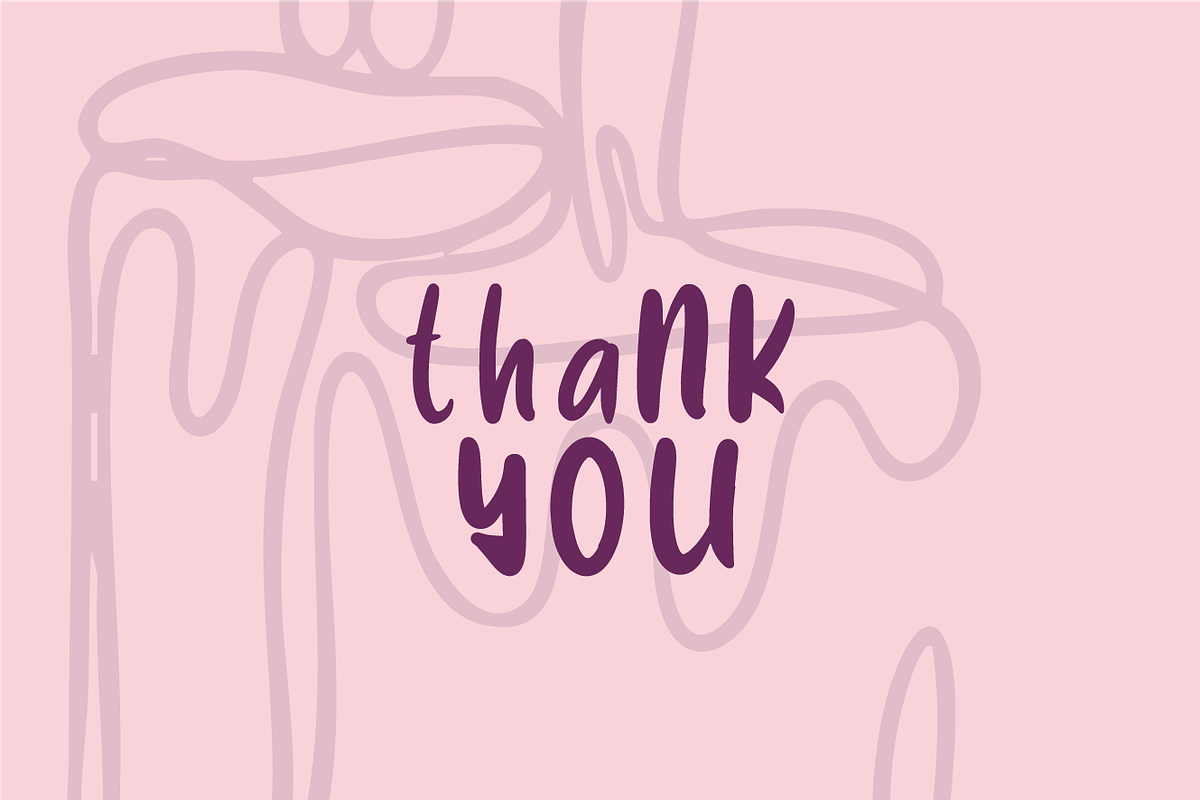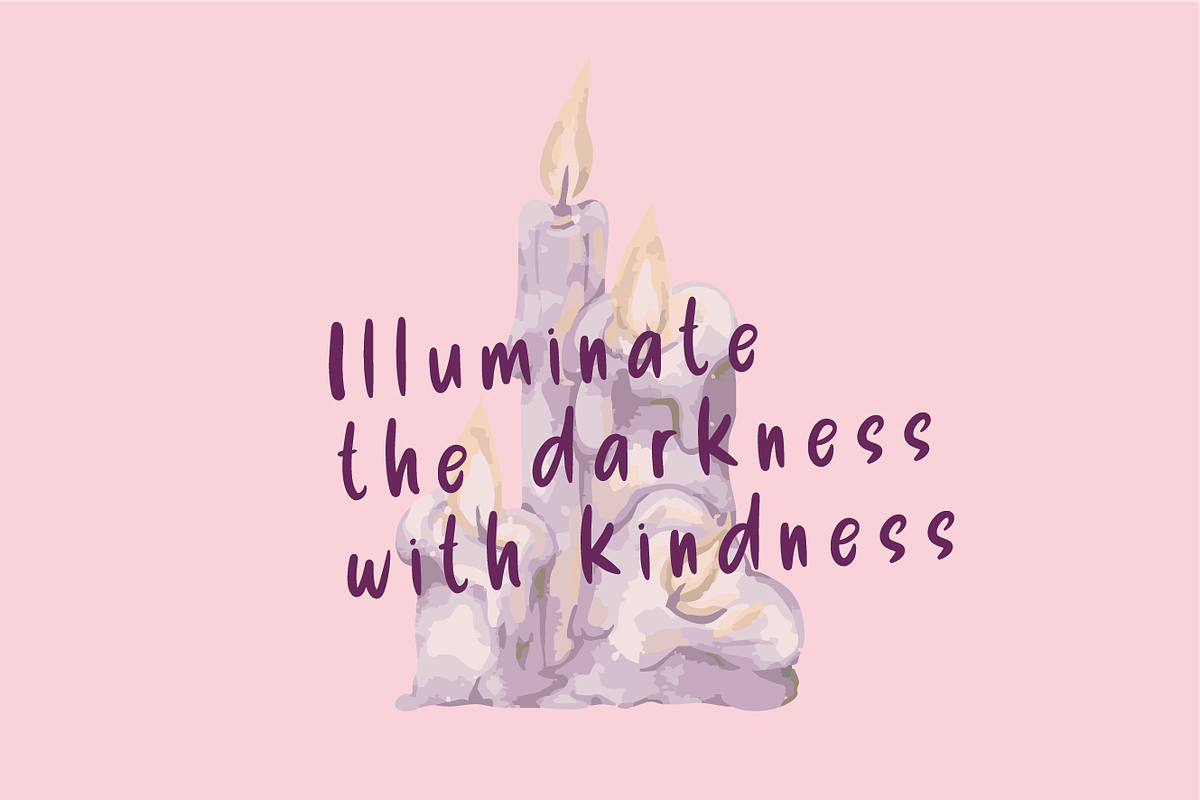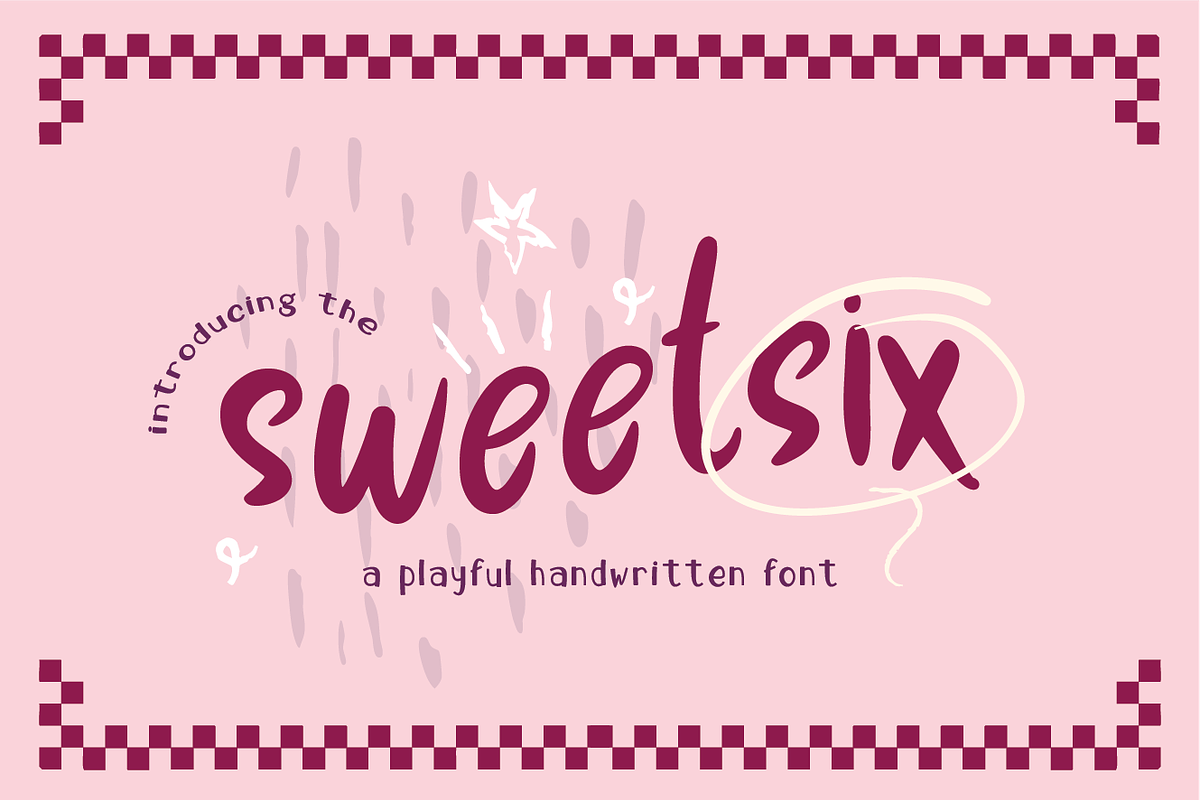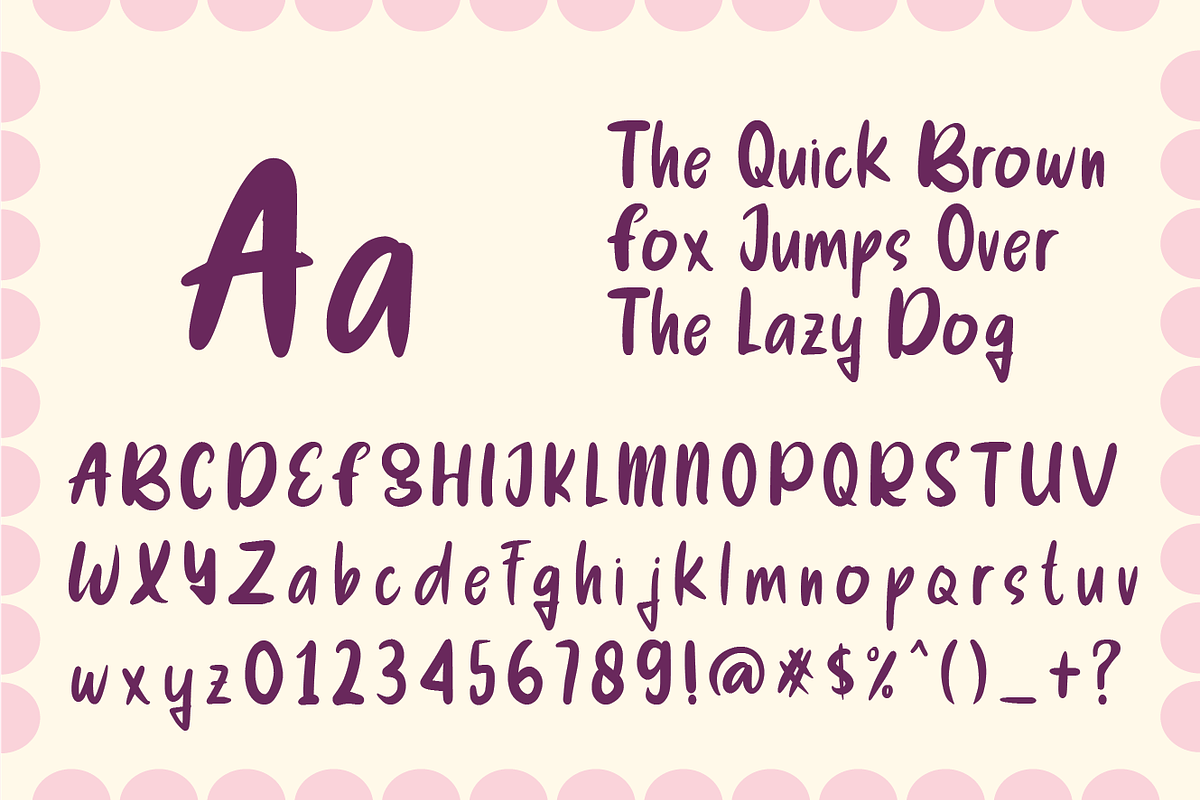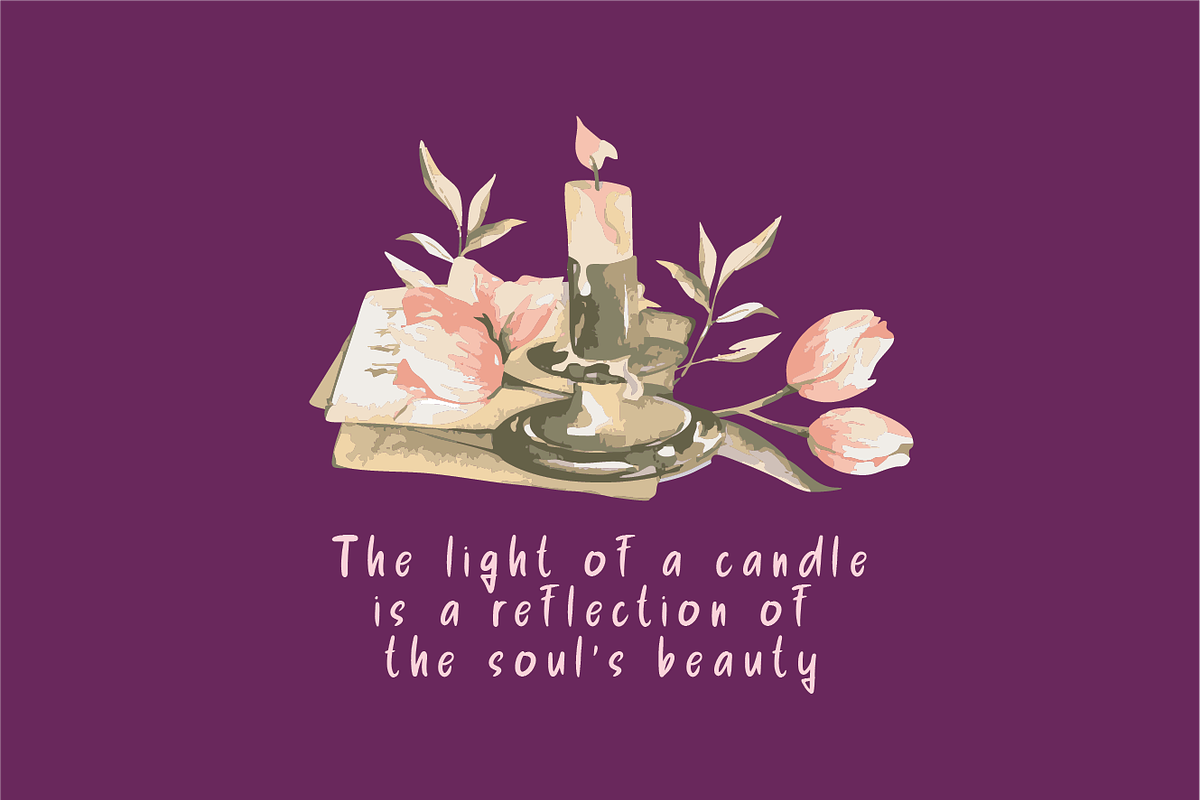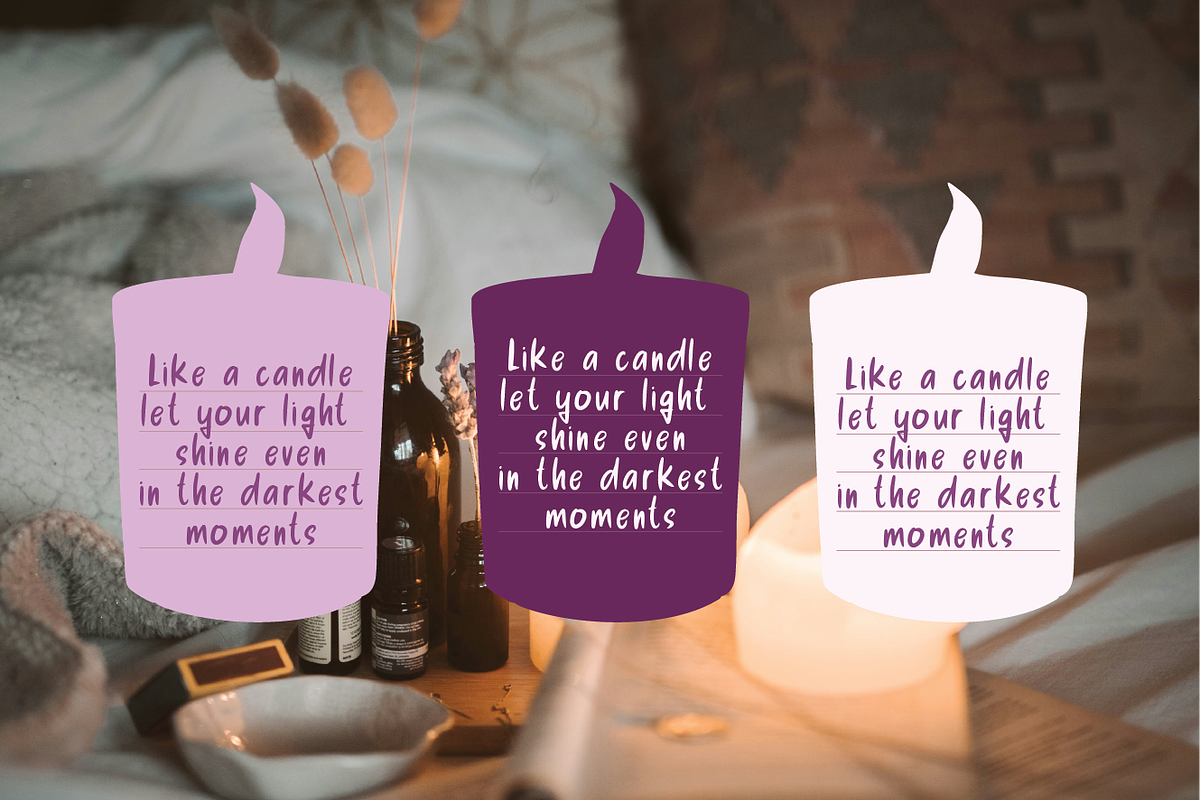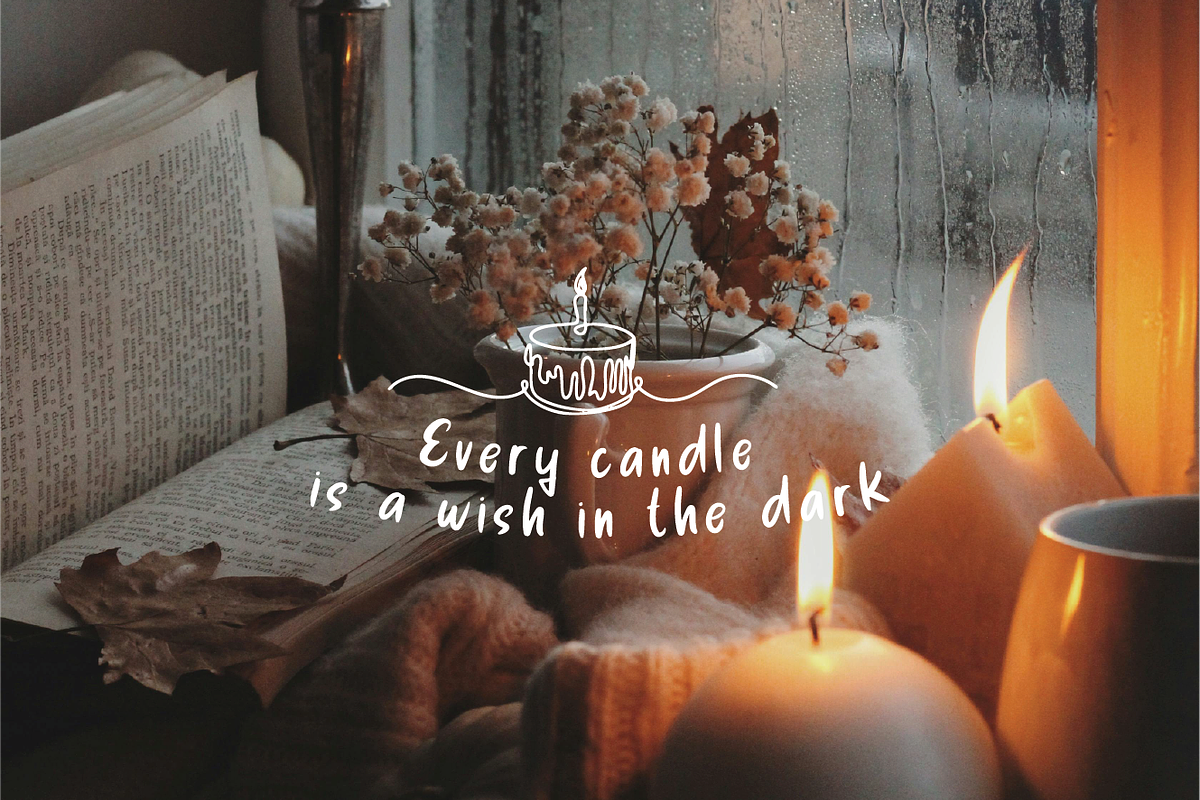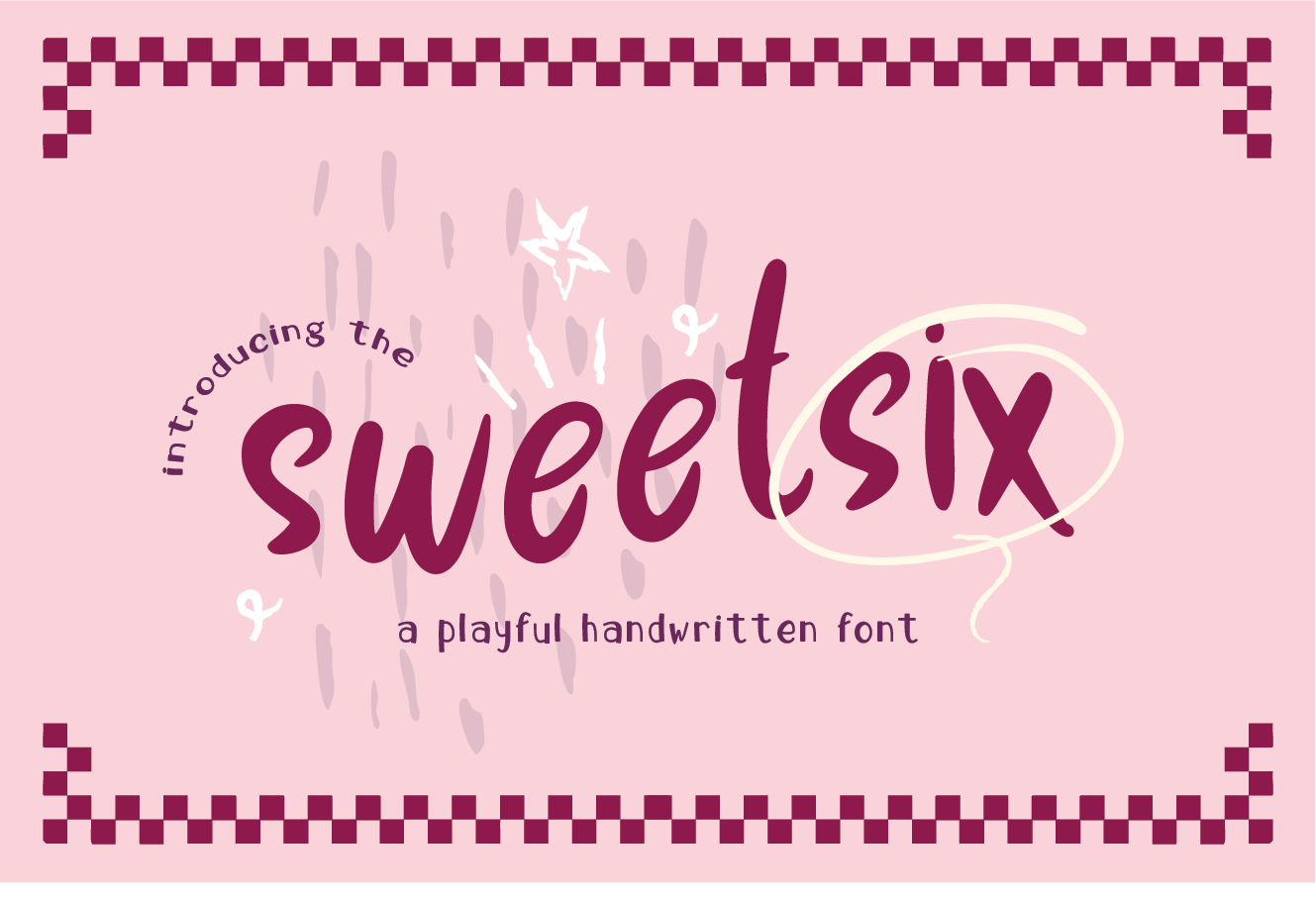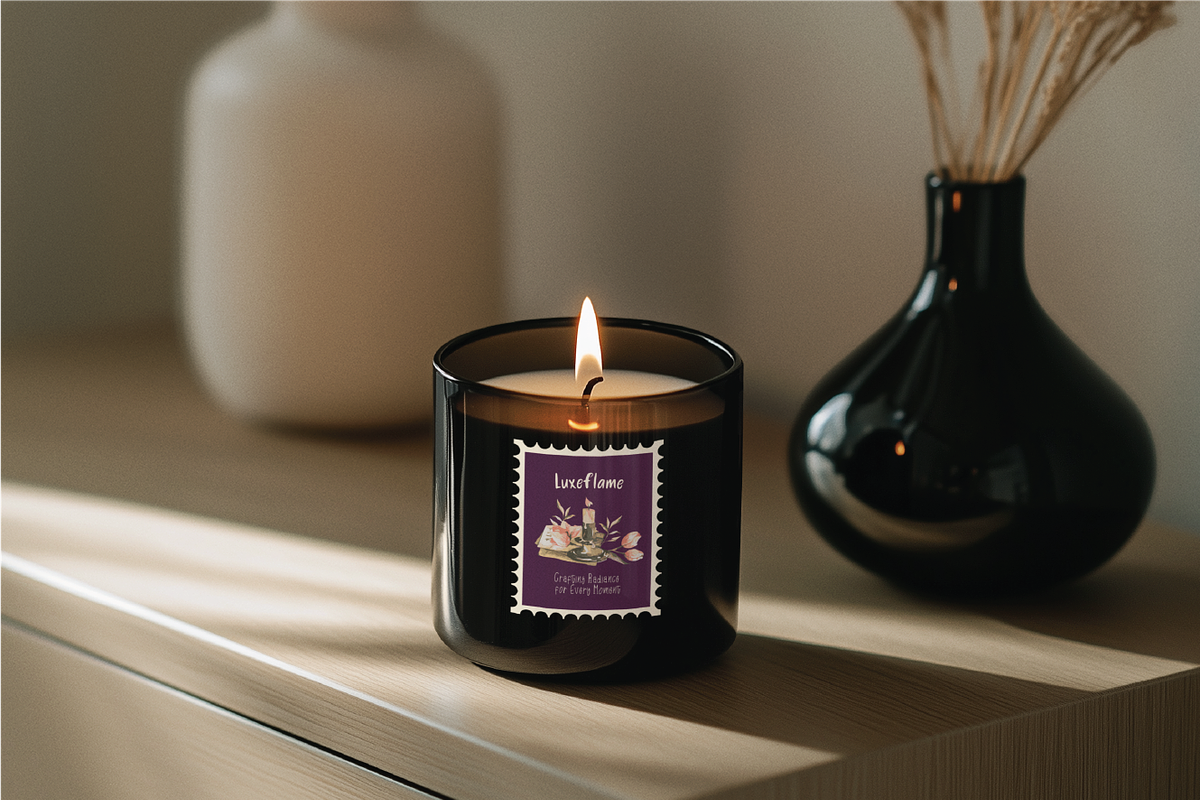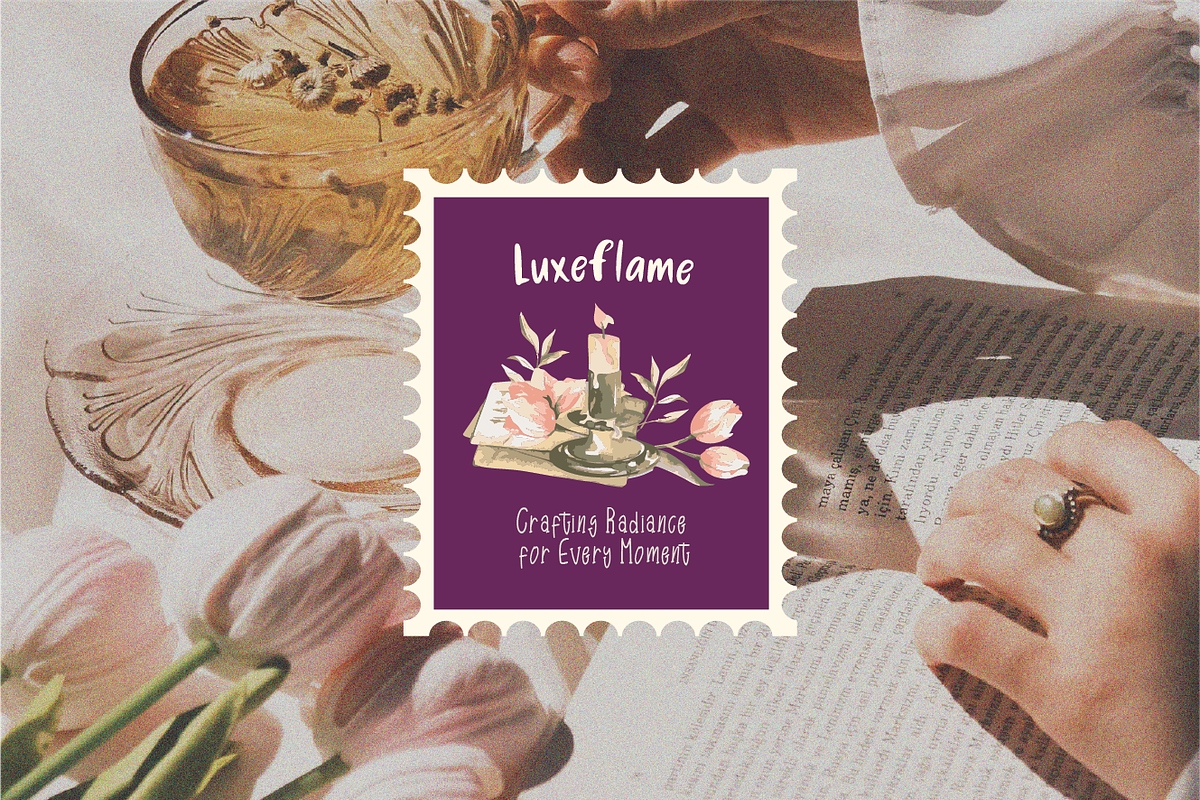
Sweetsix - Playful Font
SweetSix The font has a playful, lively design with rounded letters and smooth curves. The whimsical, slightly irregular shapes make it feel casual and fun, while the deep burgundy color gives it a warm, inviting touch.